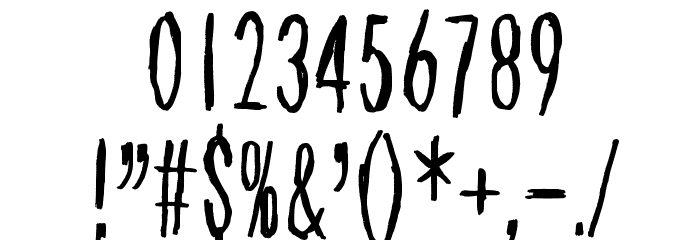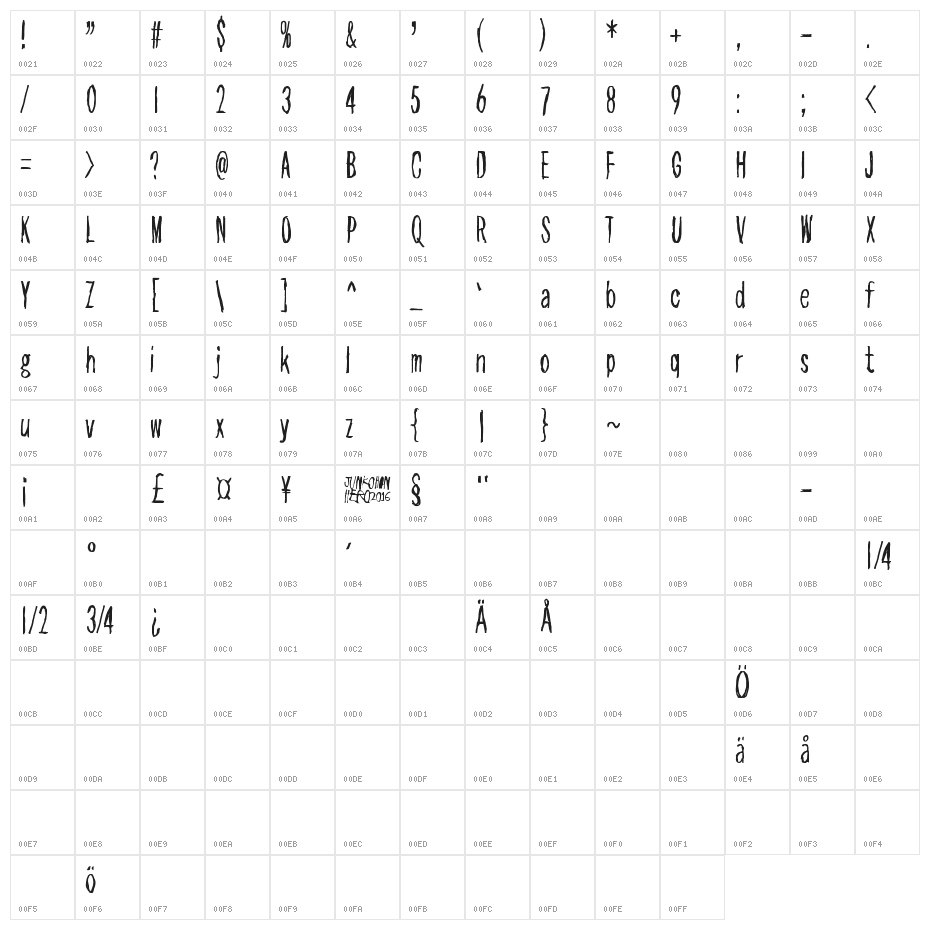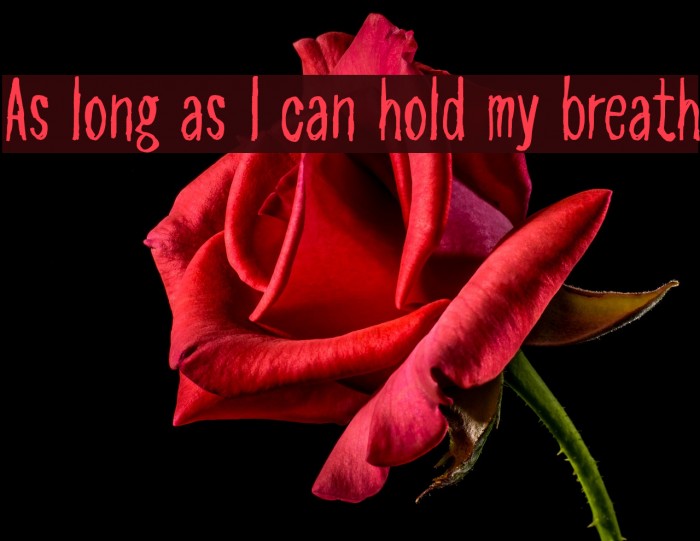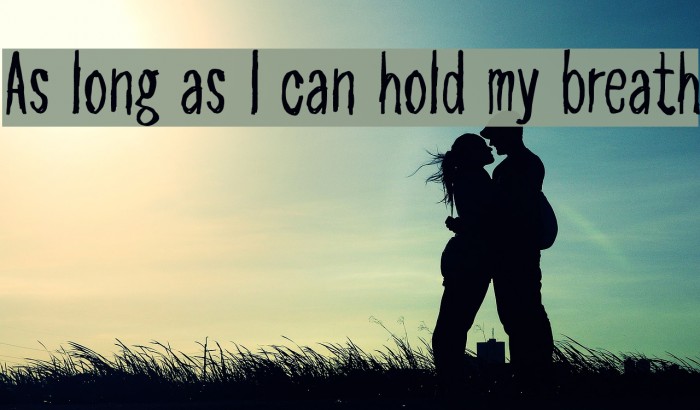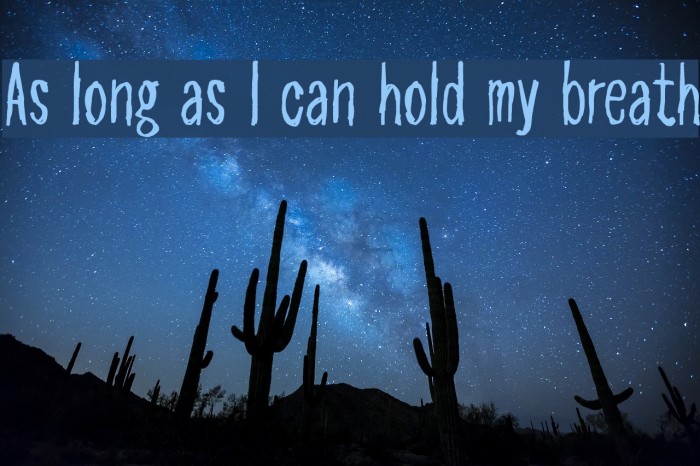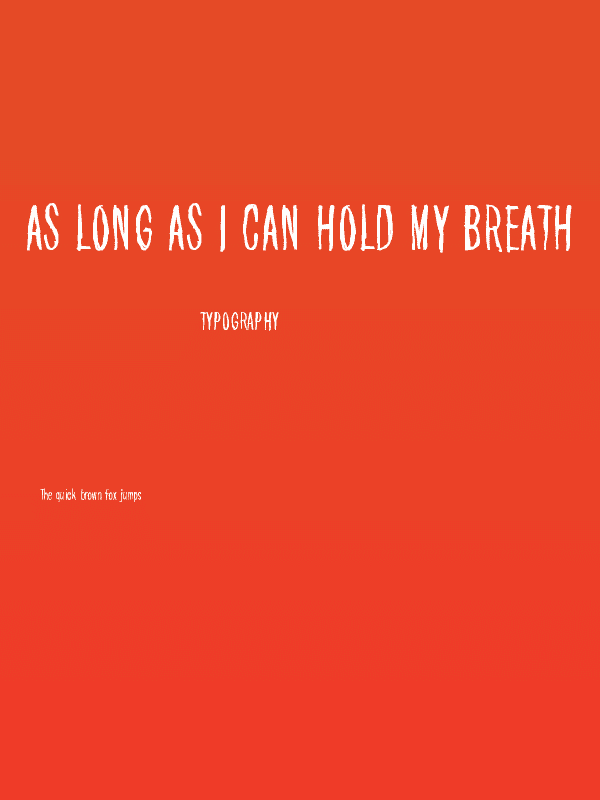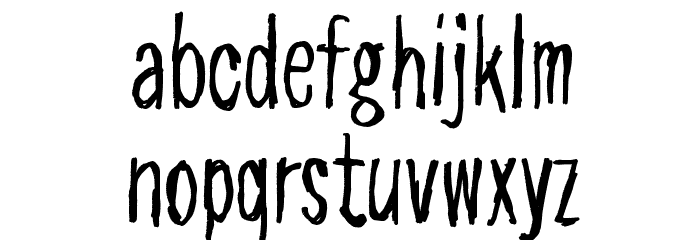
As long as I can hold my breath Font
As long as I can hold my breath Description
This font features a hand-drawn, organic style with a playful and slightly irregular appearance. The strokes are uneven, giving it a casual and artistic feel. The uppercase letters are tall and narrow, while the lowercase letters maintain a consistent height with a slight slant, adding to the informal look. The numbers are bold and distinct, matching the overall style of the alphabet. Special characters are included, maintaining the same hand-crafted aesthetic. This font is ideal for projects that require a personal touch or a creative flair.